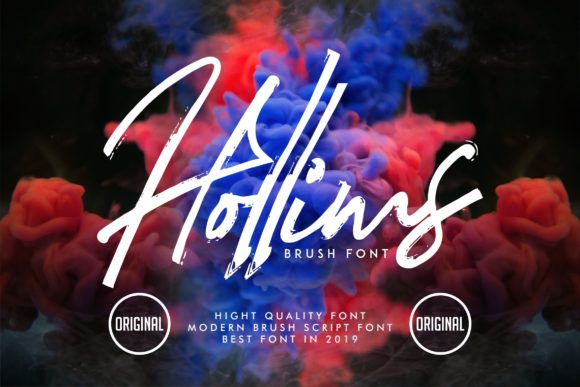
Welcome to the world of Hollims Font, a gorgeous handwritten treasure that will transform your creative visions into captivating masterpieces. Immerse yourself in the artistry of this calligraphy-inspired script, crafted with meticulous care by the talented Vunira. Hollims Font is not merely a font; it's an artistic journey, an invitation to let your imagination soar and create designs that resonate with your audience.
With Hollims Font as your creative companion, you'll discover a world of possibilities. Enchant your wedding invitations with a touch of timeless elegance, let your brand logo radiate personality and charm, or craft social media posts that captivate your followers with their visual allure. Hollims Font is not just a font; it's a versatile chameleon, adapting seamlessly to any creative endeavor, ready to elevate your designs to new heights of sophistication.
Every stroke of Hollims Font is a testament to Vunira's artistry, meticulously crafted to evoke emotions and create lasting impressions. Indulge in the beauty of its flowing lines, the gracefulness of its curves, and the expressive charm of its characters. Hollims Font is not just a font; it's an art form, a symphony of visual delight that will transform your creative projects into unforgettable experiences.
Gone are the days of mundane and predictable fonts. Hollims Font is a breath of fresh air, an artistic revolution that will set your designs apart from the ordinary. Embrace the power of its calligraphy-inspired style and watch as your creations come alive with a unique and captivating charm. Hollims Font is not just a font; it's a game-changer, a catalyst for creativity that will redefine your design aesthetic and leave your audience spellbound.